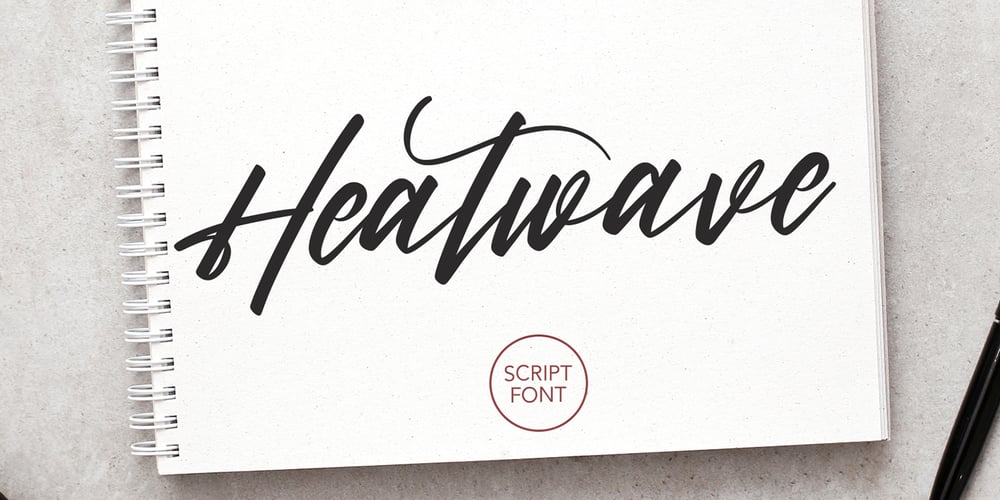
Heatwave
Heatwave font
Heatwave Font Family was designed by Gilang Maulana and published by Maulana Creative. Heatwave contains 1 styles and family package options. Give your designs an authentic handcrafted feel. Heatwave is a handmade, brush script font and is perfectly suited to stationery, logos and much more. It also includes multi-lingual support.Many Thanks,MaulanaCreative